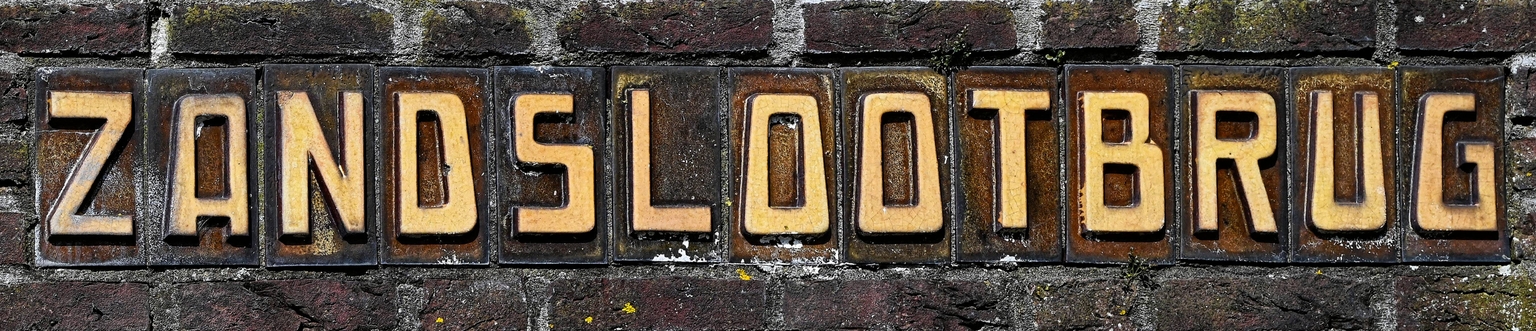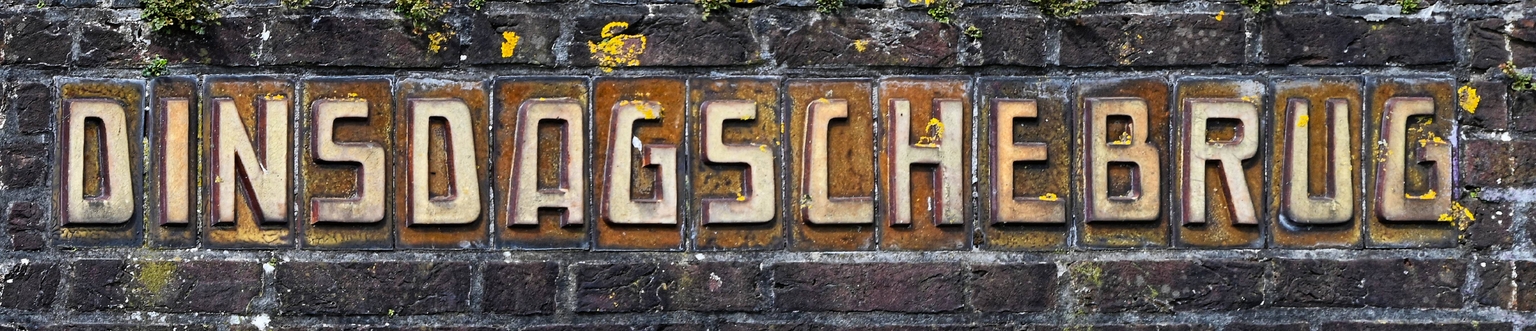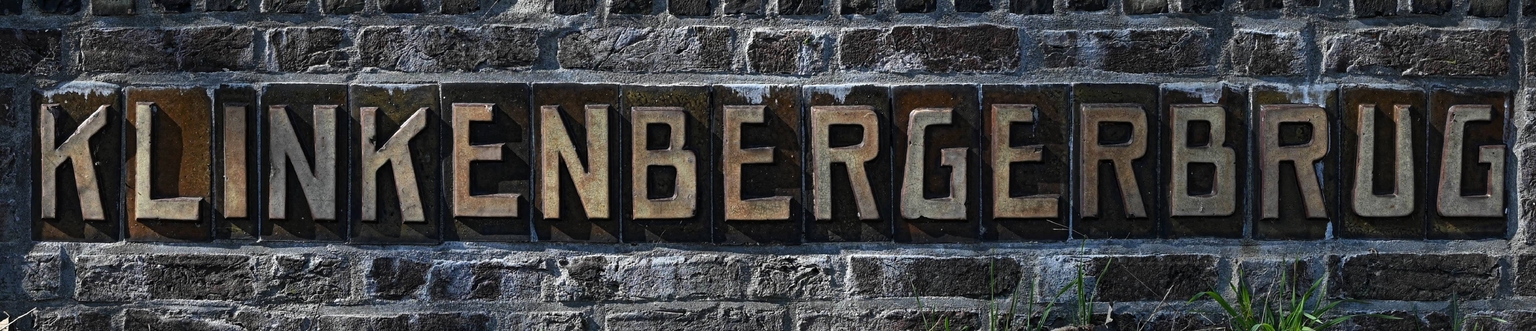
Sassenheim
Sassenheim is a modular display typeface designed by Ramiro Espinoza and inspired by an experimental, expressionist alphabet found on ceramic lettering plates attached to several bridges in the Sassenheim area of the Netherlands. Examples can be found on the Dinsdagschebrug, Klinkenbergerbrug, and Postbrug, all built in the 1930s and designed by the engineering department of Rijkswaterstaat, the Dutch national water management authority. Their original lettering combines geometric construction with unusual proportions and irregular details, resulting in a distinctive vernacular alphabet with a strong architectural presence.
Espinoza studied the proportions, modular structure, and distinctive shapes of the ceramic letters and translated these qualities into a contemporary digital typeface. Rather than reproducing the lettering literally, he refined its construction, improved consistency, and expanded the character set for contemporary use while preserving the expressive qualities and visual rhythm of the source.
With its unconventional forms, Sassenheim is well suited for posters, branding, editorial design, signage, packaging, websites, and cultural projects. Its experimental character makes it particularly suitable for avant-garde and edgy themes like electronic music projects, sci-fi and technology-inspired graphics, and visual identities that call for an unconventional typographic voice.